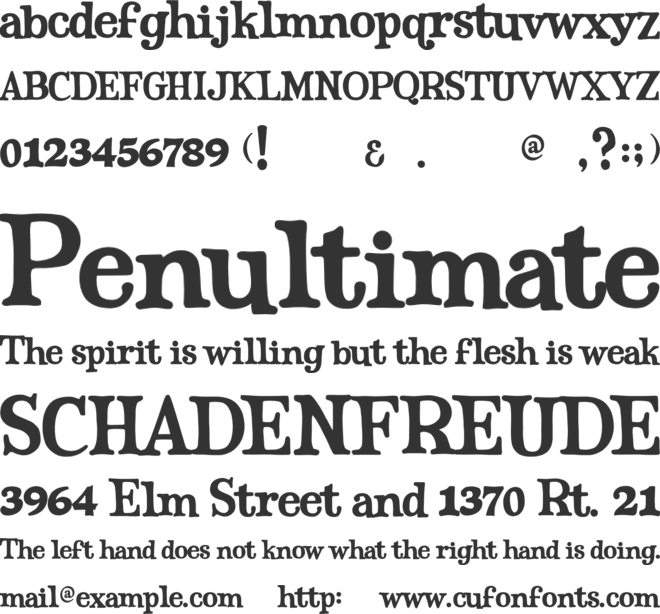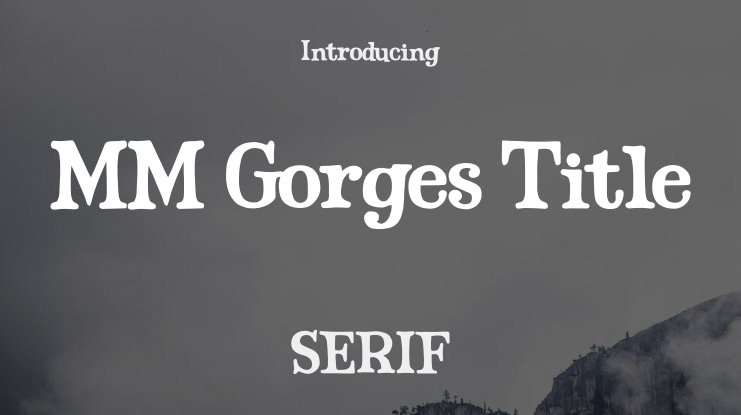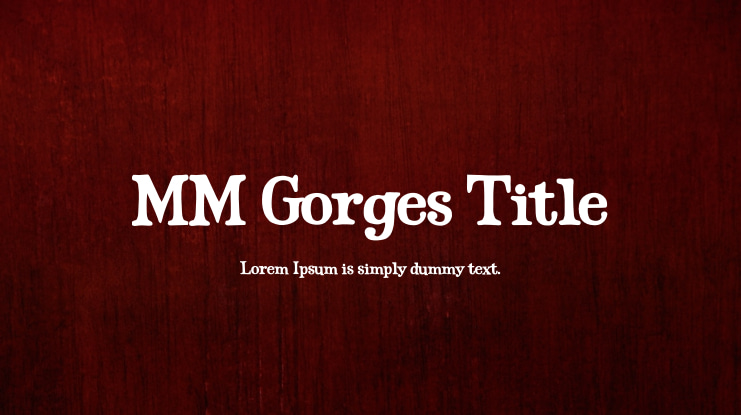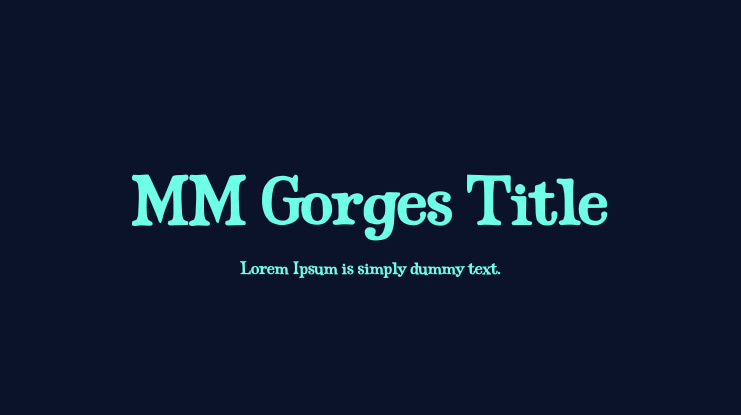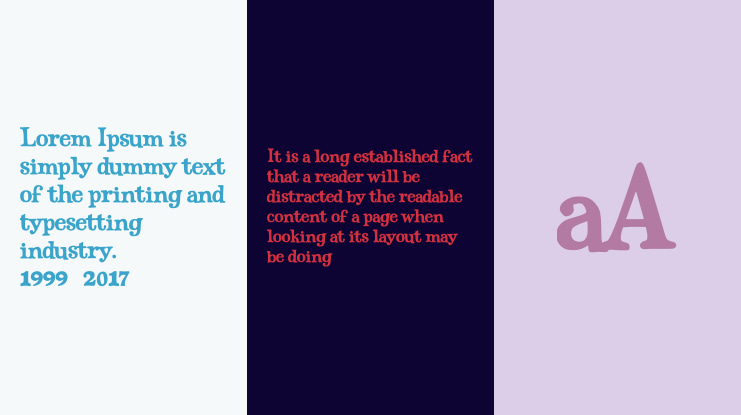
MM Gorges Title Font
A unique display font with a playful serif design created specifically for the title of a comic. Inspired by the typography found in classic Dr. Seuss books such as "Put Me in the Zoo".